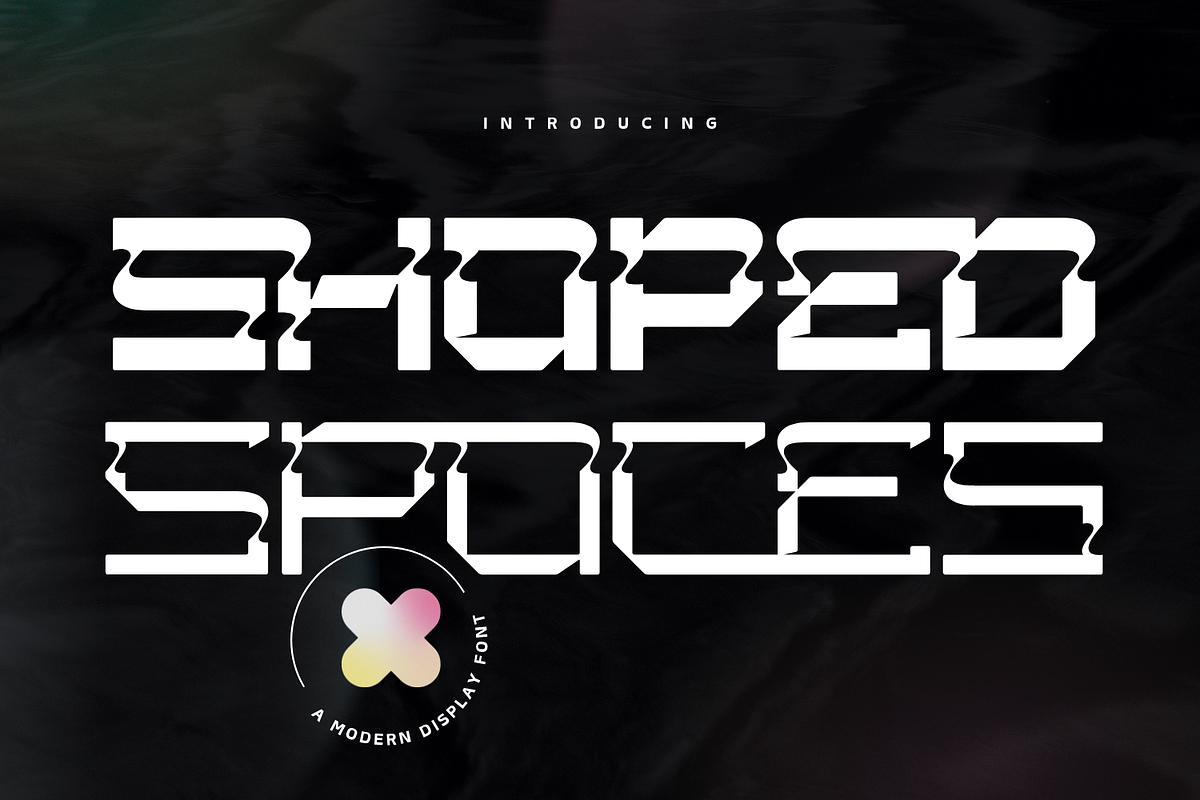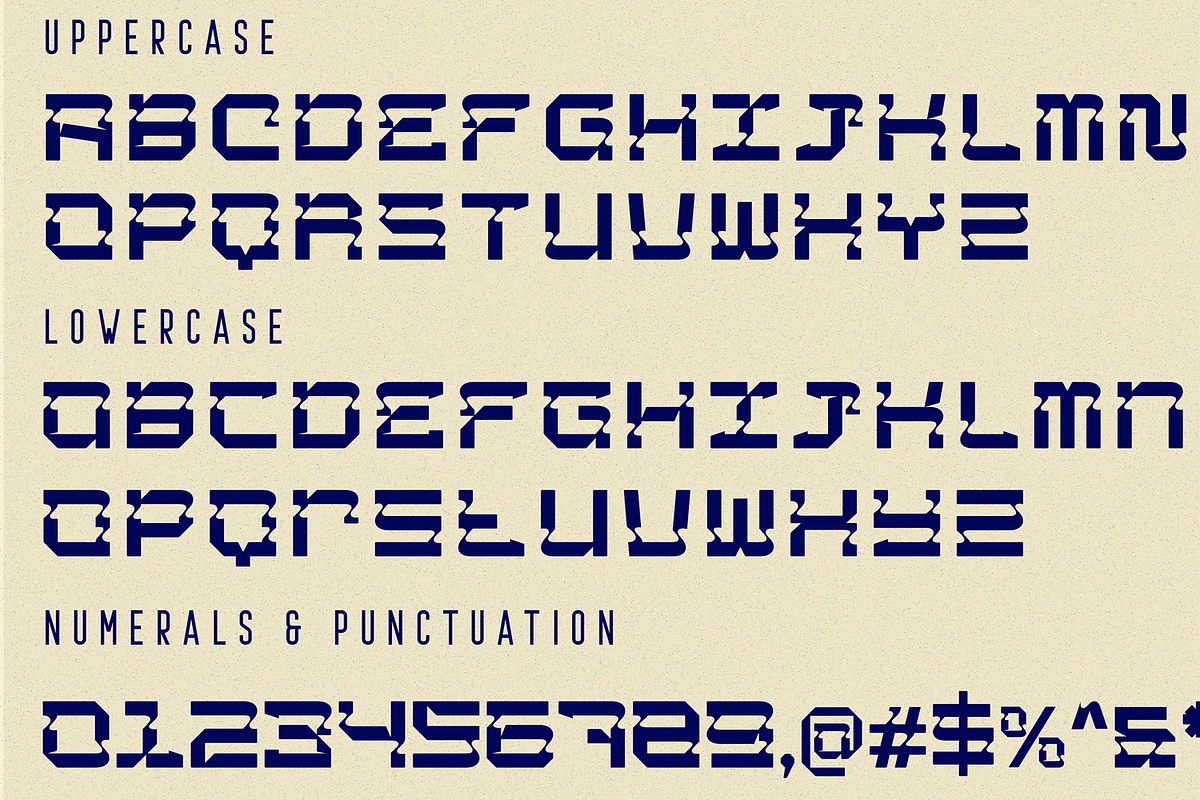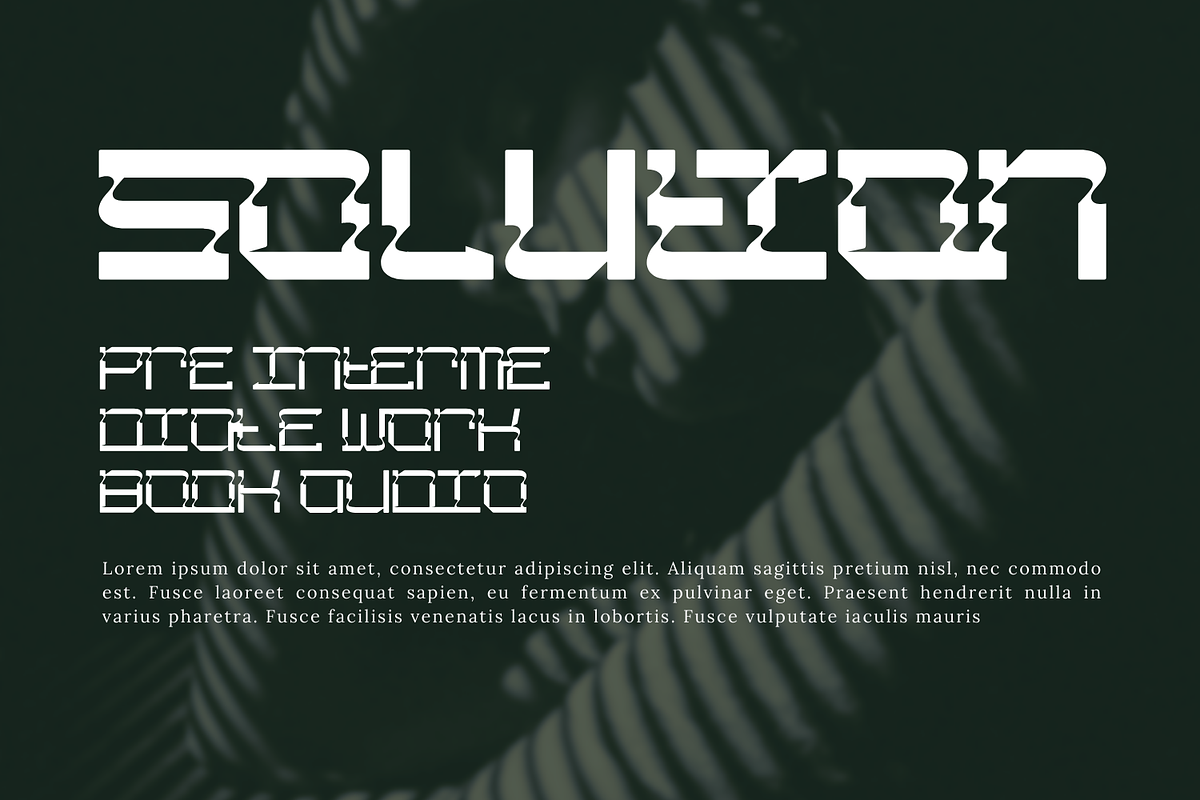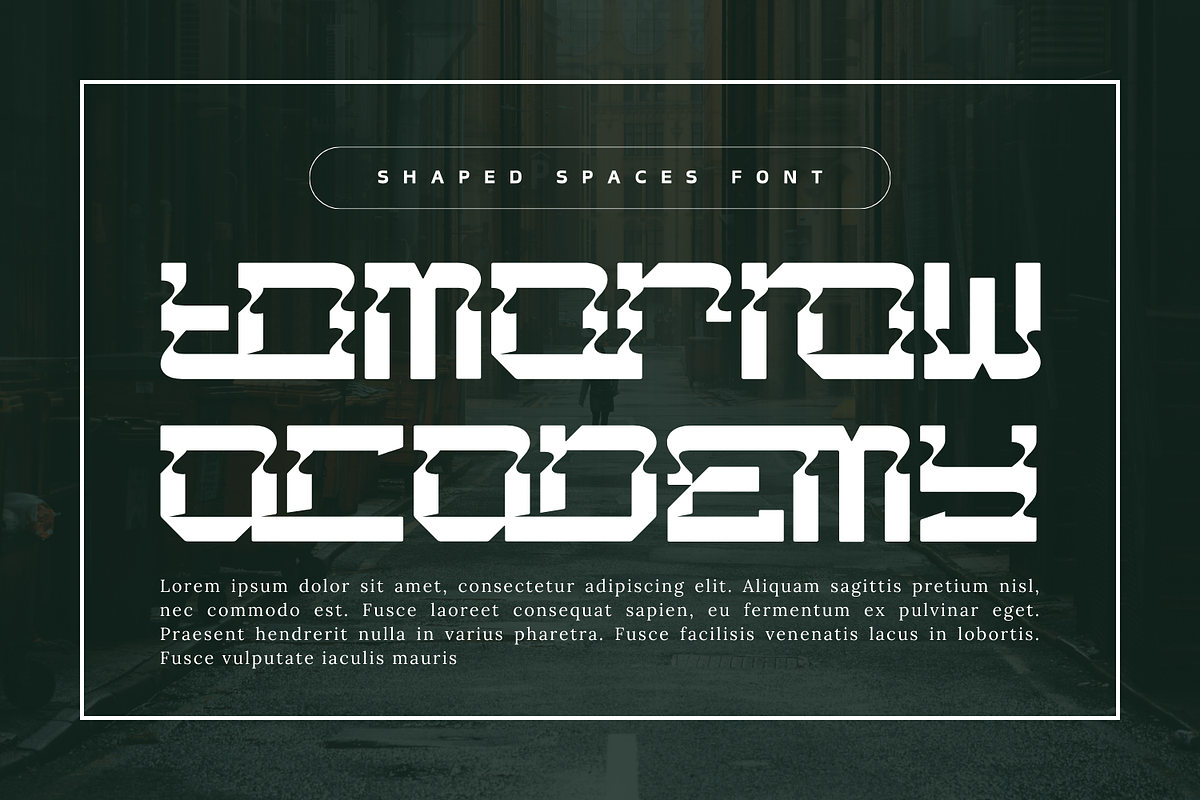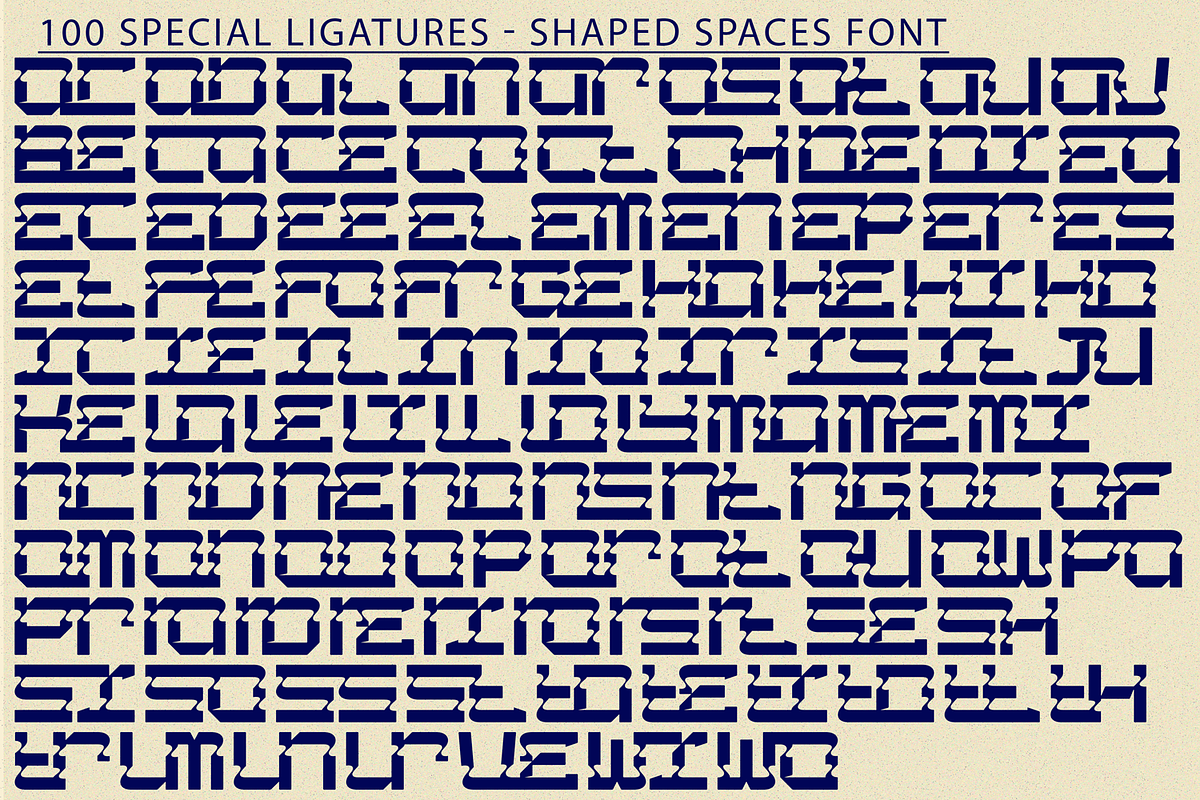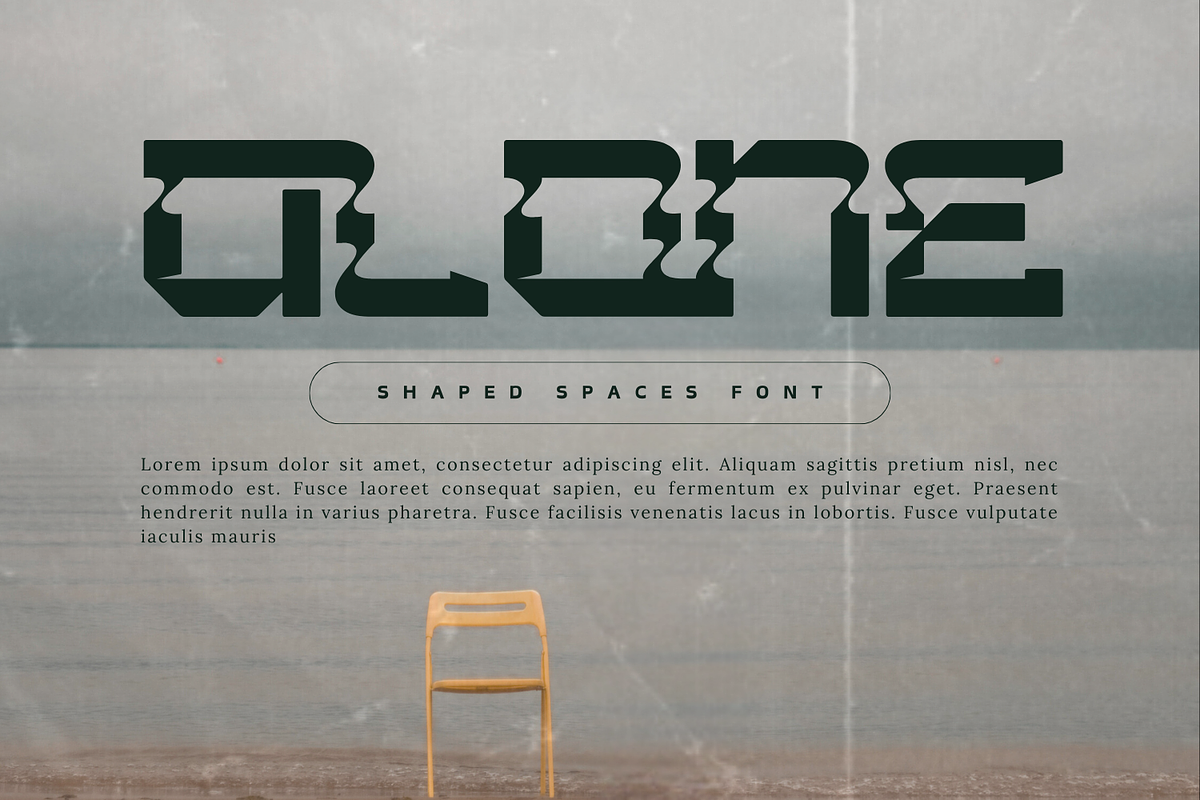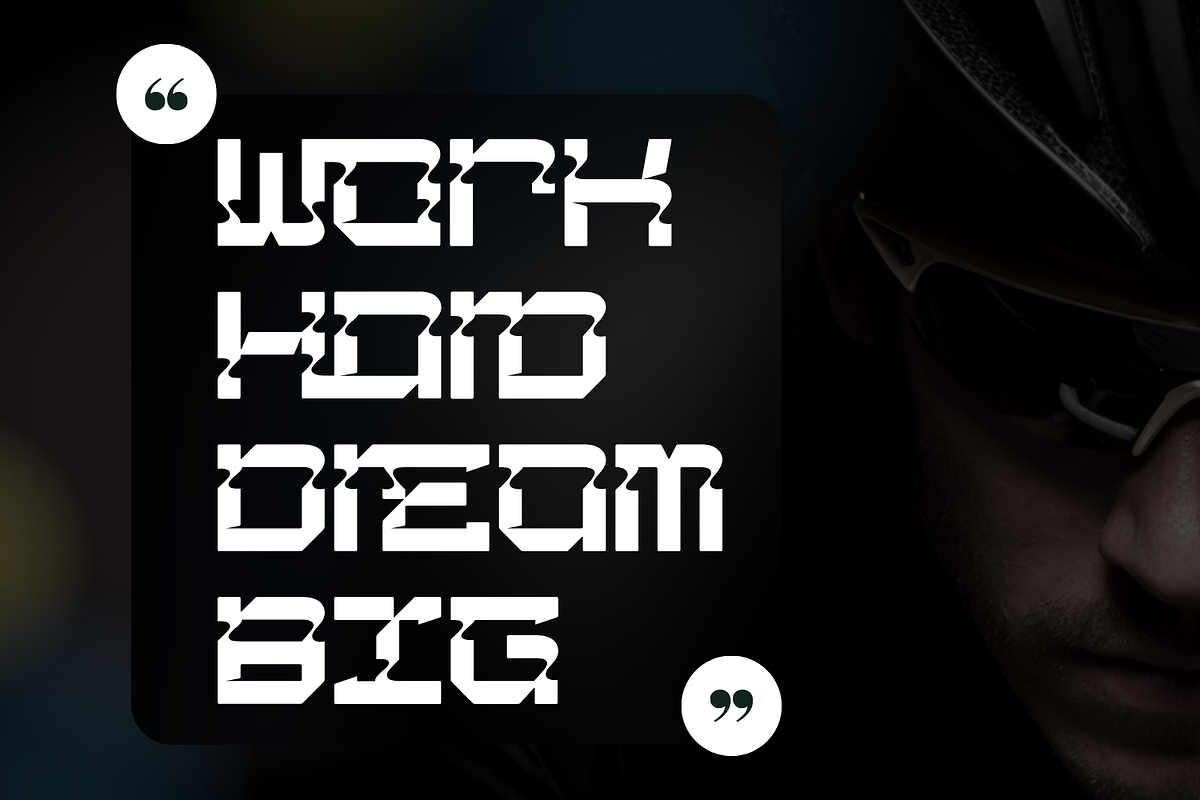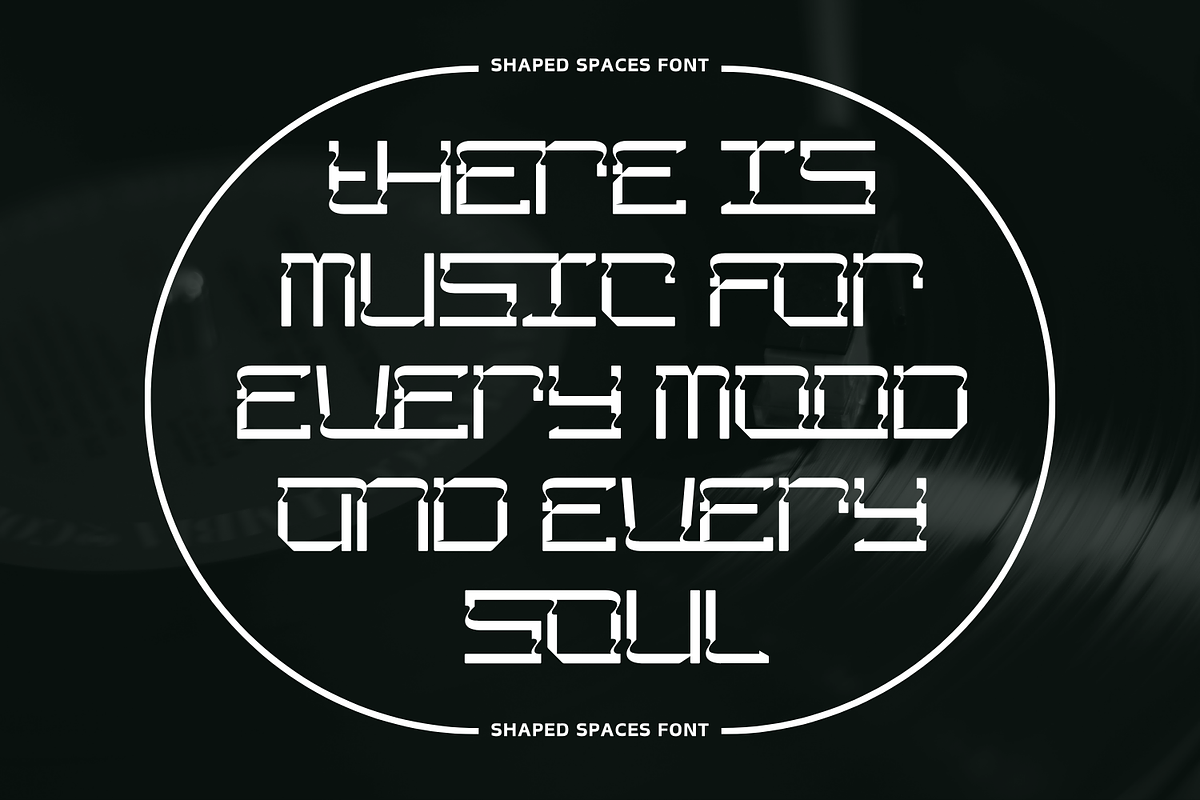
Shaped Spaces - Futuristic Font
Shaped Spaces Font is a cutting-edge cyber sci-fi futuristic font that embodies the essence of digital worlds and high-tech design. With sharp angles, sleek lines, and a bold presence, this font is perfect for projects that demand a modern, tech-savvy look. The sharp edges and unique letterforms emphasize innovation and forward-thinking design. It well-suited for technological, futuristic, robotic, or dystopian themes, such as posters, branding, or game designs. This font excels in creating visual impact but is better suited for titles or headlines.
Shaped Spaces was built with OpenType features and includes 100 ligatures, alternate, numbers, punctuation, and it also supports other languages.
ac ad al an ar as at au av be ca ce ch co ct de di ea ec ed ee el em en ep er es et fe fo fr ge ha he hi ho ie ic il in io ir is it ju ke la le li ll lo ly ma me mi nc nd ne ng no nt ns oc of om on oo op or ot ou ow pa pr ra rd re ri ro rs rt se sh si so ss st ta te th ti to tr tt um un ur ve wi wo
This font also included full set of:
- Special Ligatures